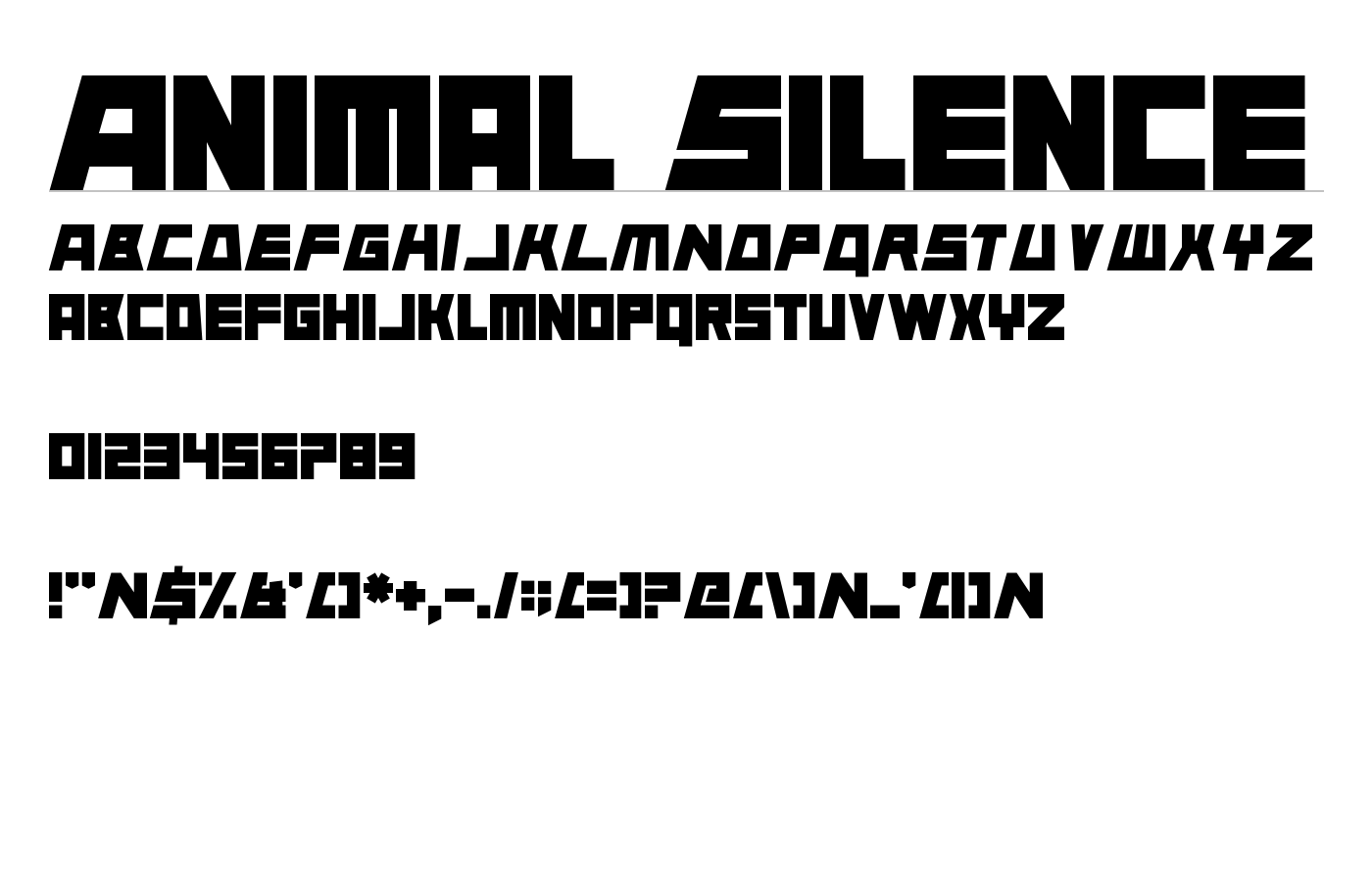
Animal Silence is a bold, geometric sans serif font with a strong, futuristic feel. Its sharp angles and condensed letterforms give it a dynamic and edgy personality, making it ideal for headlines, logos, and branding that aim to convey confidence and modernity. This font works well in contexts where a striking, tech-inspired aesthetic is desired, such as posters, gaming, and fashion-related designs.
Animal Silence Font